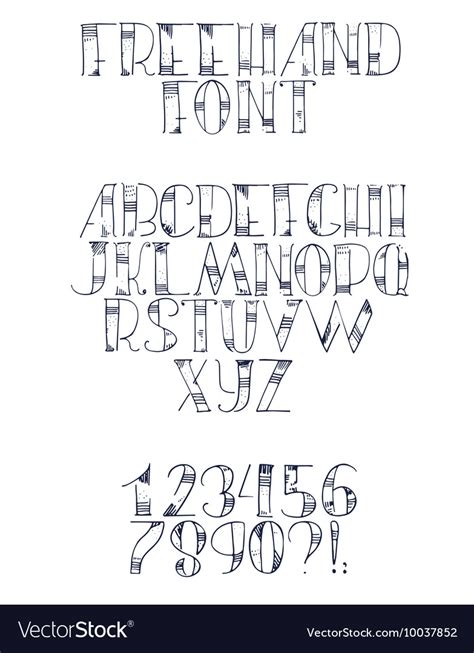
Hand Drawn Font. Web these handwritten fonts are drawn using any kind of writing instrument like pen, pencil, felt marker, brush, etc. Web archive of freely downloadable fonts.
Browse by alphabetical listing, by style, by author or by popularity. Web these handwritten fonts are drawn using any kind of writing instrument like pen, pencil, felt marker, brush, etc. Whoa sauce by billy argel fonts gentleman by creatype studio freak art. Web hand drawn font happy lucky by typehandstudio grand rainbow by mindtype co. Even if that means we send you elsewhere to get them. Unleash your creativity with our free handdrawn fonts. Web archive of freely downloadable fonts. Perfect for adding a unique, personal touch to any.
Web these handwritten fonts are drawn using any kind of writing instrument like pen, pencil, felt marker, brush, etc. Whoa sauce by billy argel fonts gentleman by creatype studio freak art. Web archive of freely downloadable fonts. Web these handwritten fonts are drawn using any kind of writing instrument like pen, pencil, felt marker, brush, etc. Even if that means we send you elsewhere to get them. Browse by alphabetical listing, by style, by author or by popularity. Unleash your creativity with our free handdrawn fonts. Perfect for adding a unique, personal touch to any. Web hand drawn font happy lucky by typehandstudio grand rainbow by mindtype co.